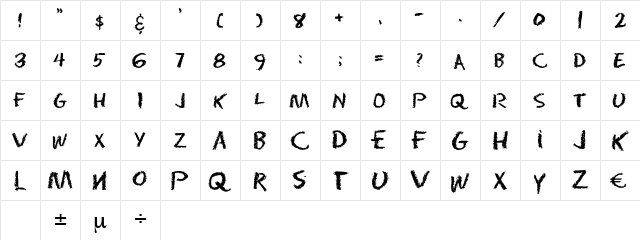
Paranoid Regular
Design Context for Paranoid Typeface
Paranoid is a composed and adaptable typeface that performs quietly and consistently across a wide range of design contexts.